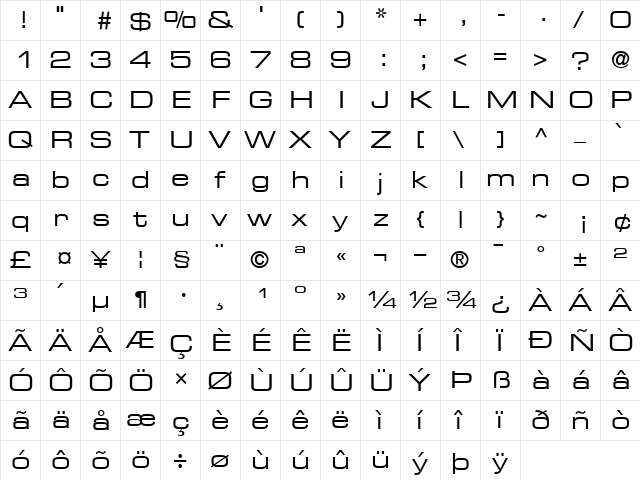
Eurostile#2-Extended Roman
Design Context for Eurostile#2-Extended Typeface
Eurostile#2-Extended is a composed and adaptable typeface that performs quietly and consistently across a wide range of design contexts.